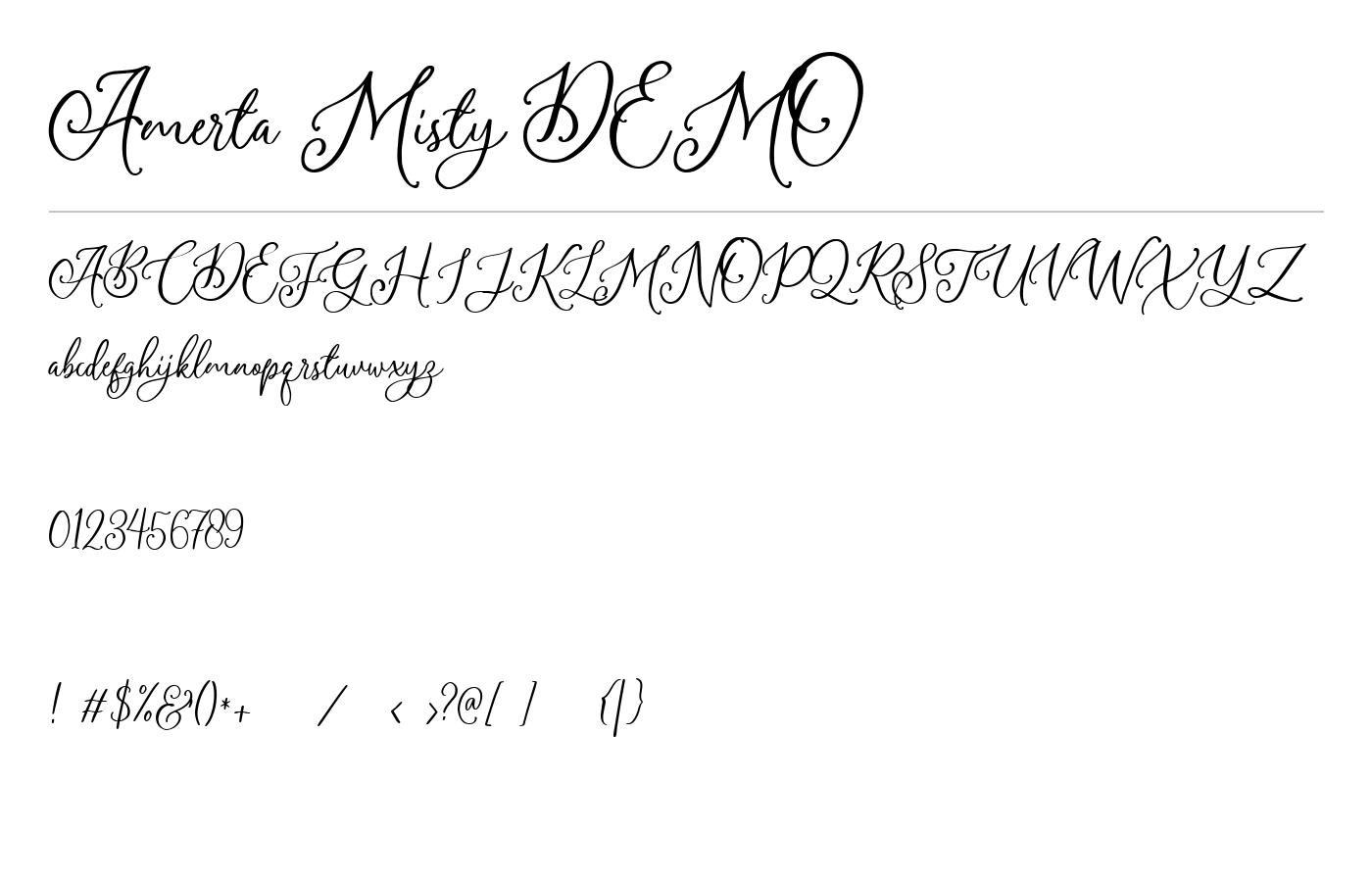
Amerta Misty DEMO is an elegant script font characterized by its delicate, flowing strokes and refined calligraphic style. Its thin weight and graceful letterforms evoke a sophisticated, romantic feel that works beautifully for luxury branding, invitations, and stylish headlines. This font shines best in decorative, formal contexts where a touch of elegance and charm is desired.
Amerta Misty DEMO Font